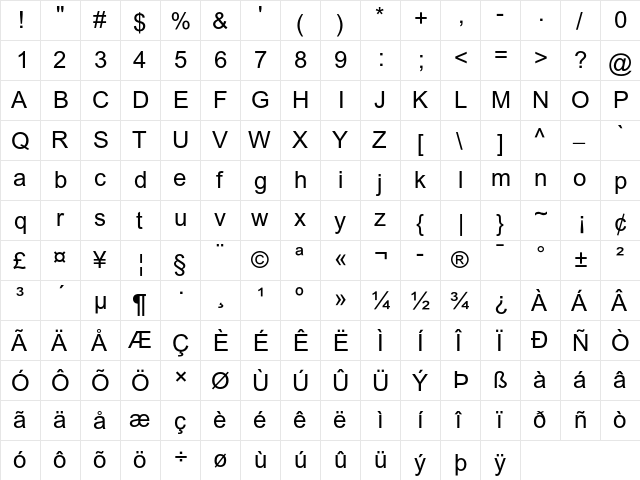
Arial Regular
Design Context for Arial Typeface
Arial is a composed and adaptable typeface that performs quietly and consistently across a wide range of design contexts.
Pro Tip: Pair Arial with a font of contrasting weight or personality to build a more expressive typographic hierarchy.